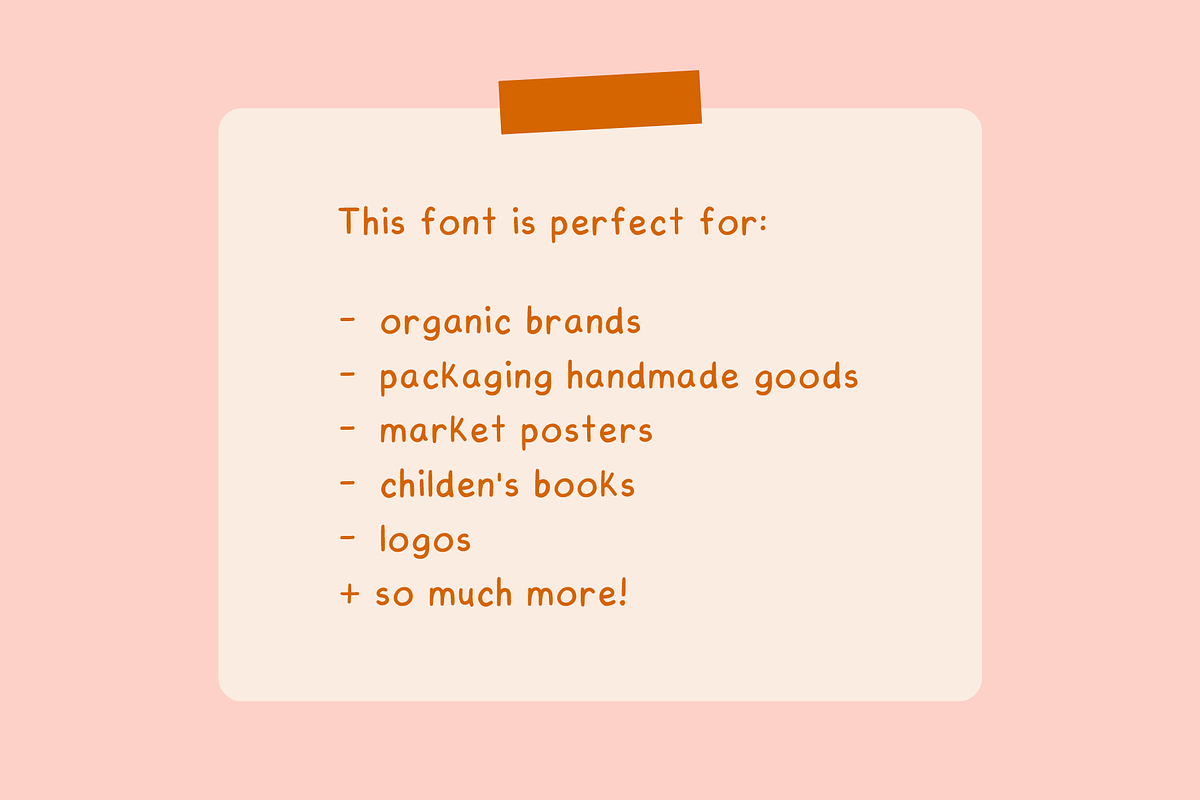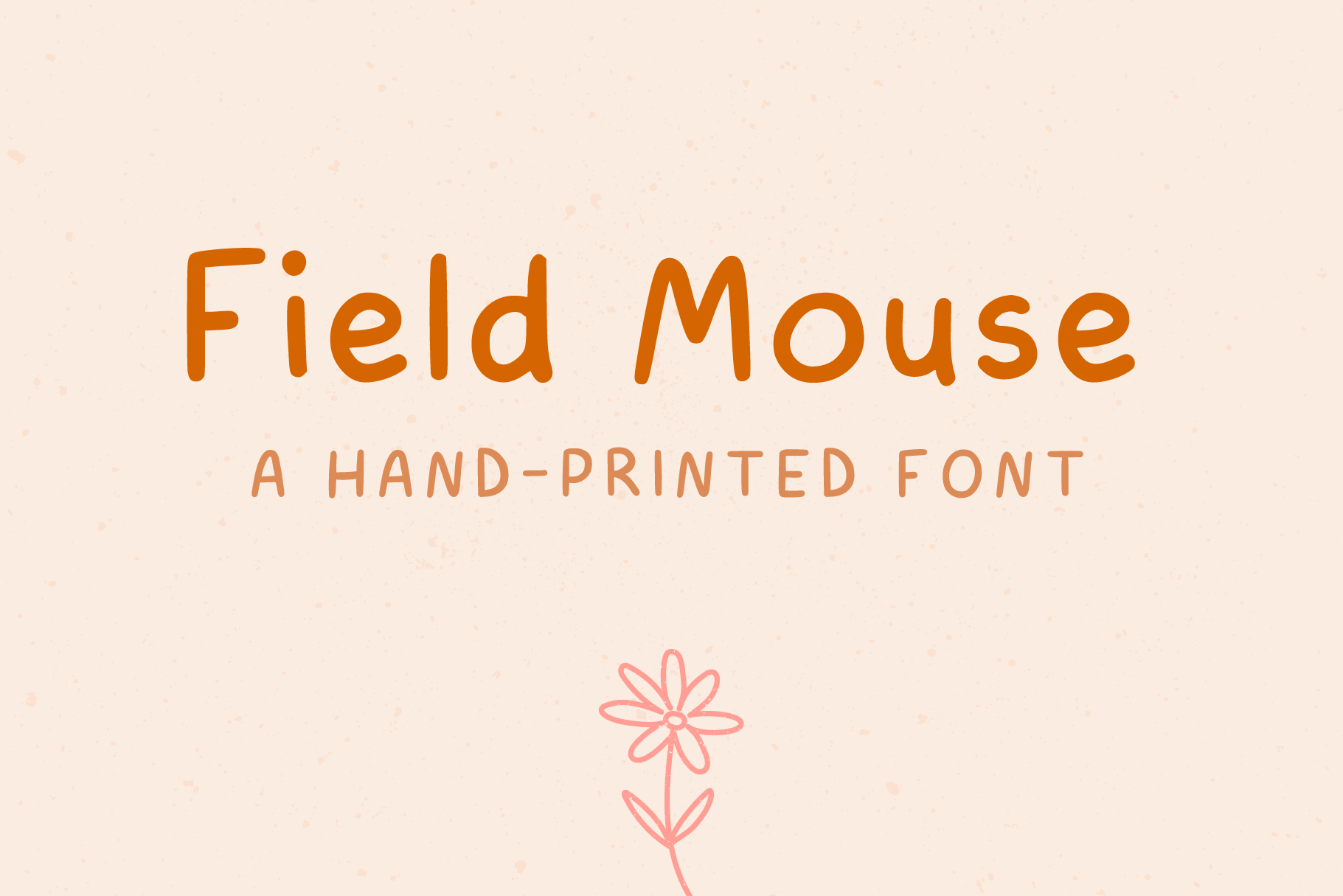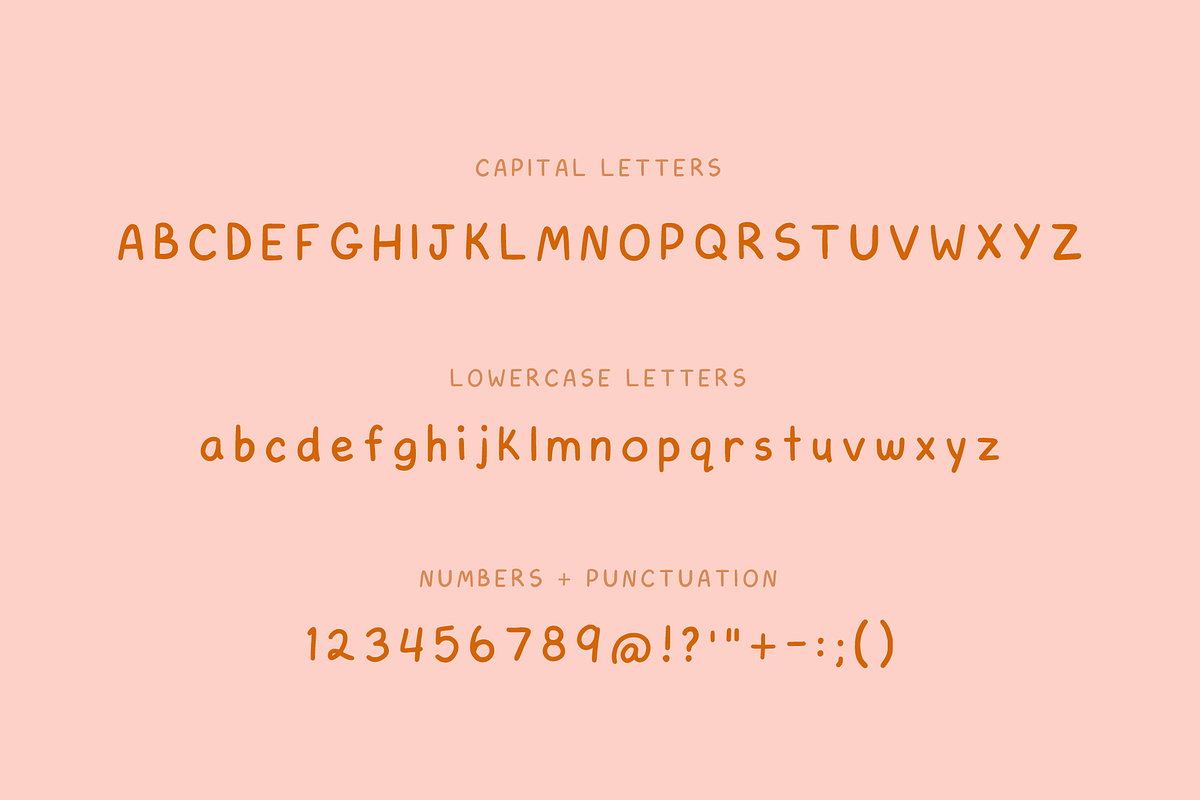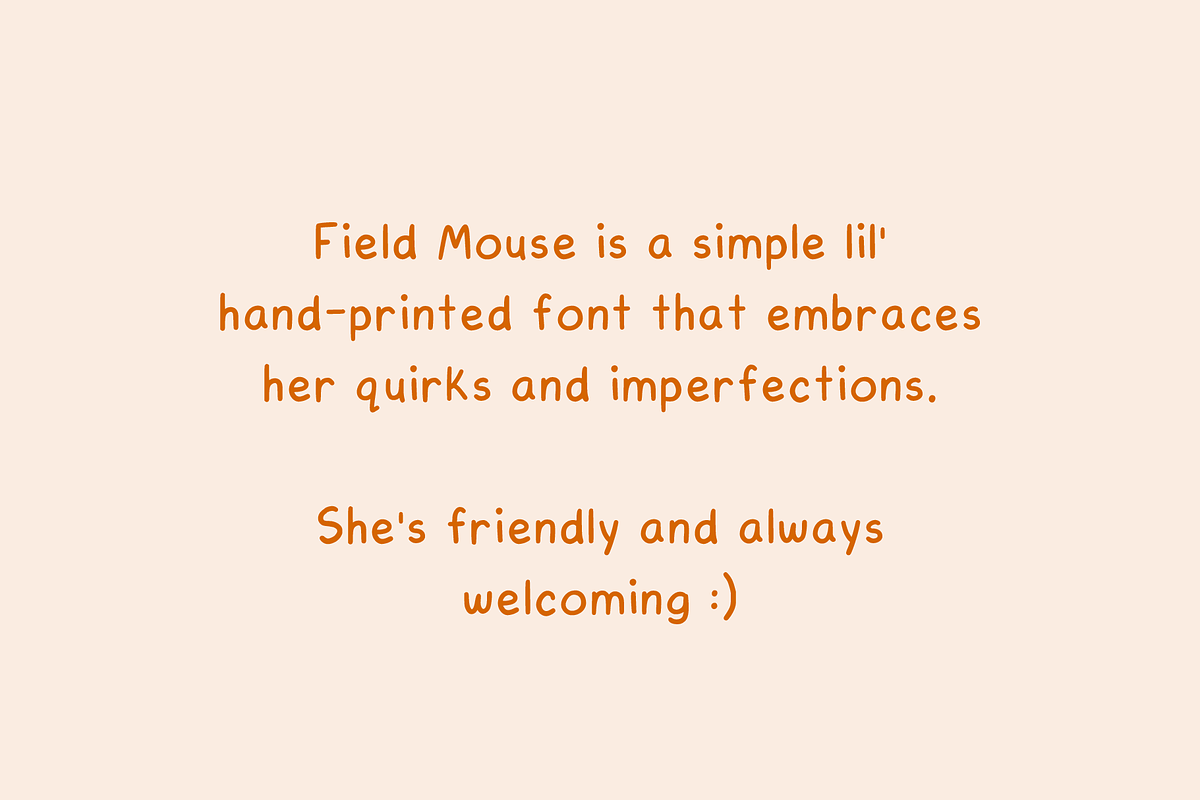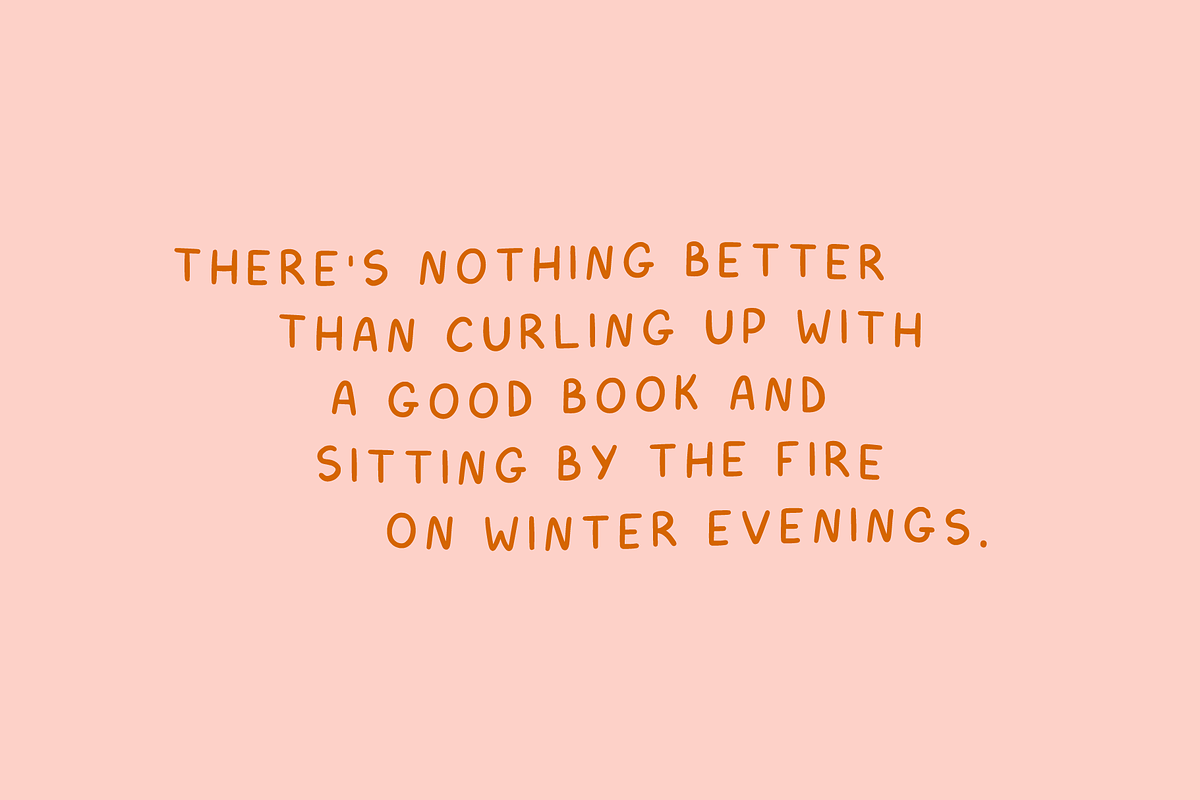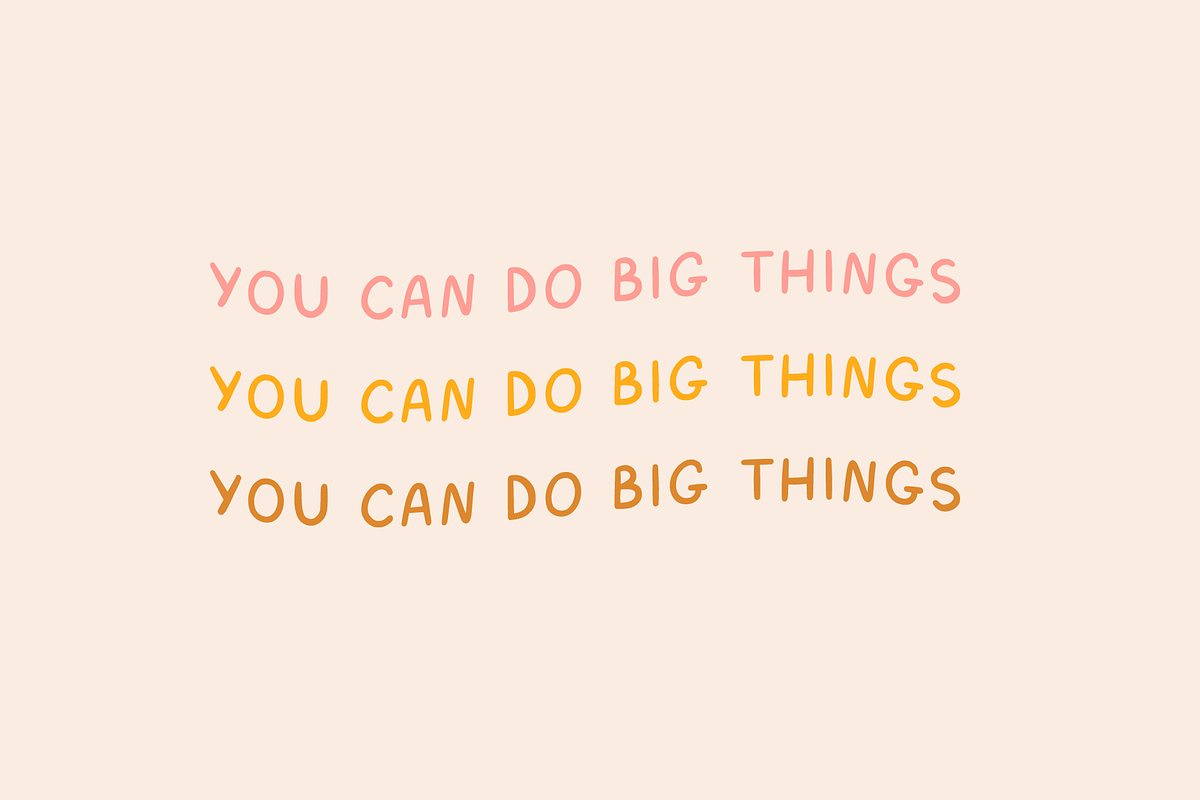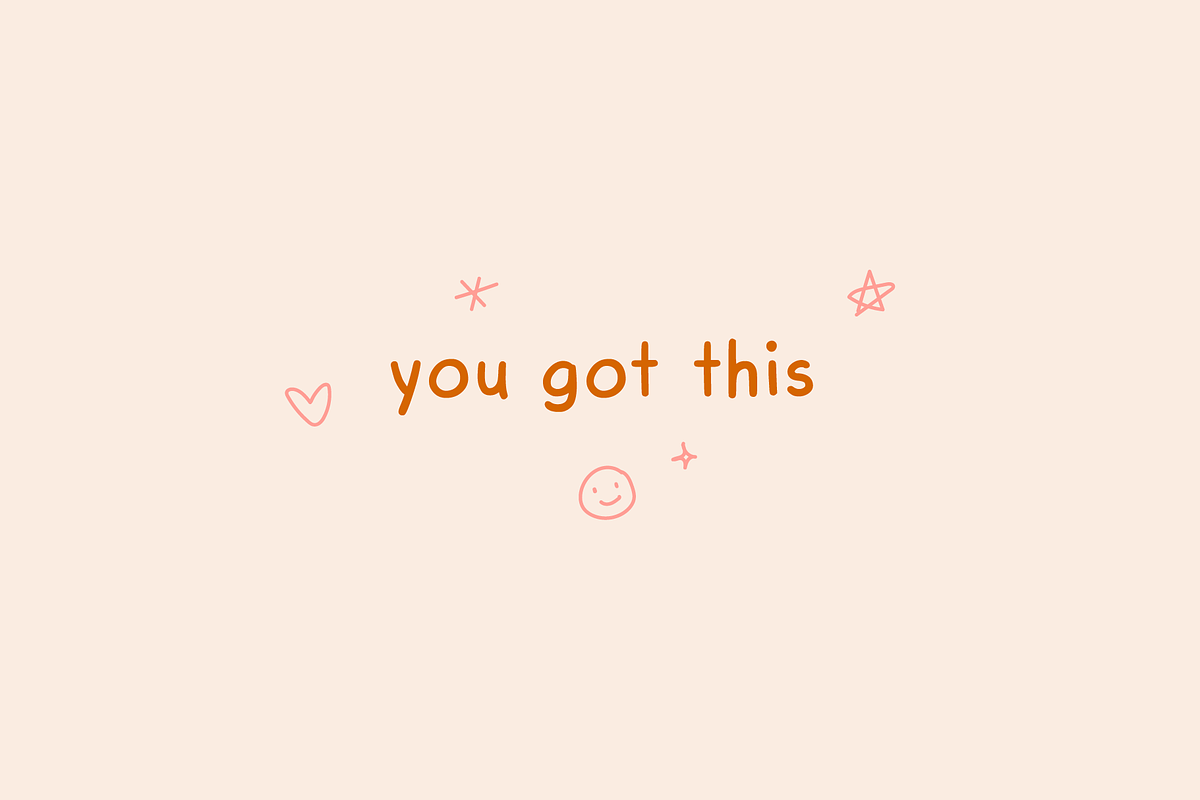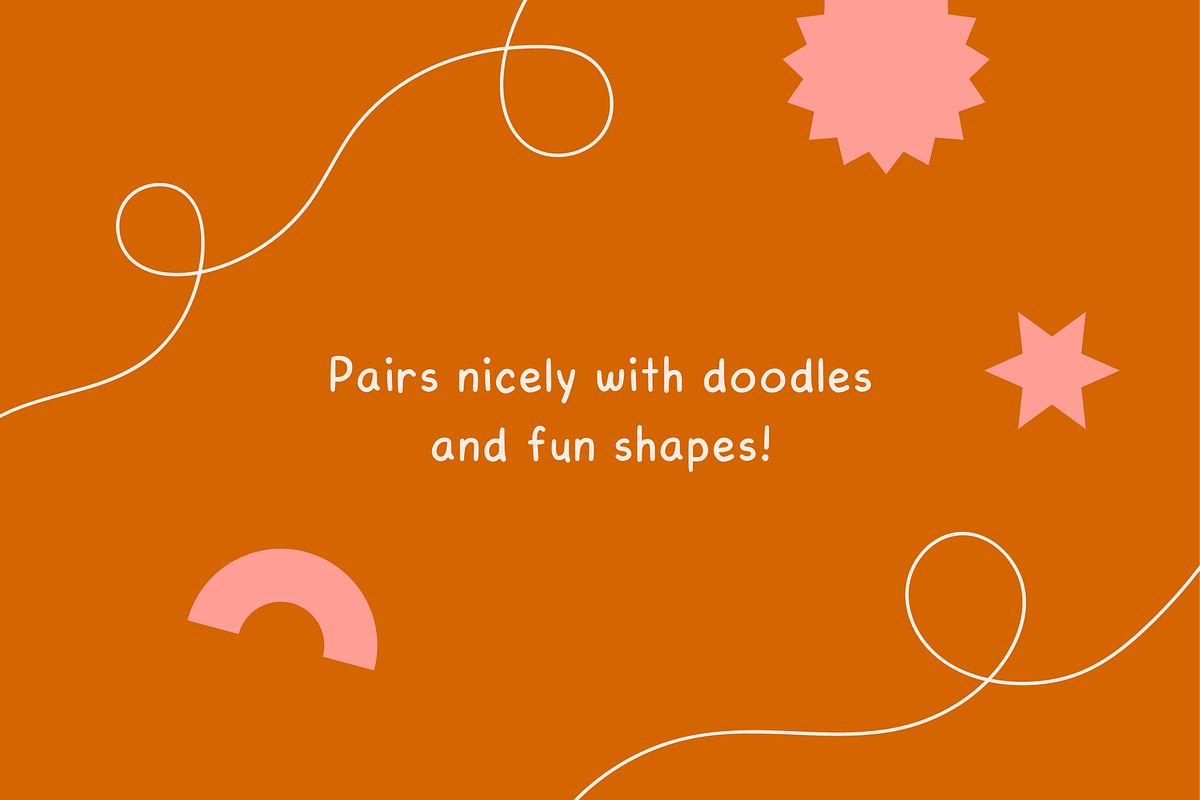
Field Mouse | A Hand-Printed Font
Say hello to Field Mouse! A sweet and simple hand-printed font.
She's quirky and friendly and will give any project a loving handmade touch. She looks great paired with cute line drawings or playful shapes. Field Mouse embraces her quirks to match the look of realistic hand-printed letters.
- Social media graphics
- Packaging for handmade goods
- Organic/handmade branding
- Children's books/toys
- Market posters and flyers
- Quotes
- Invitations
- Logos
- and so much more!